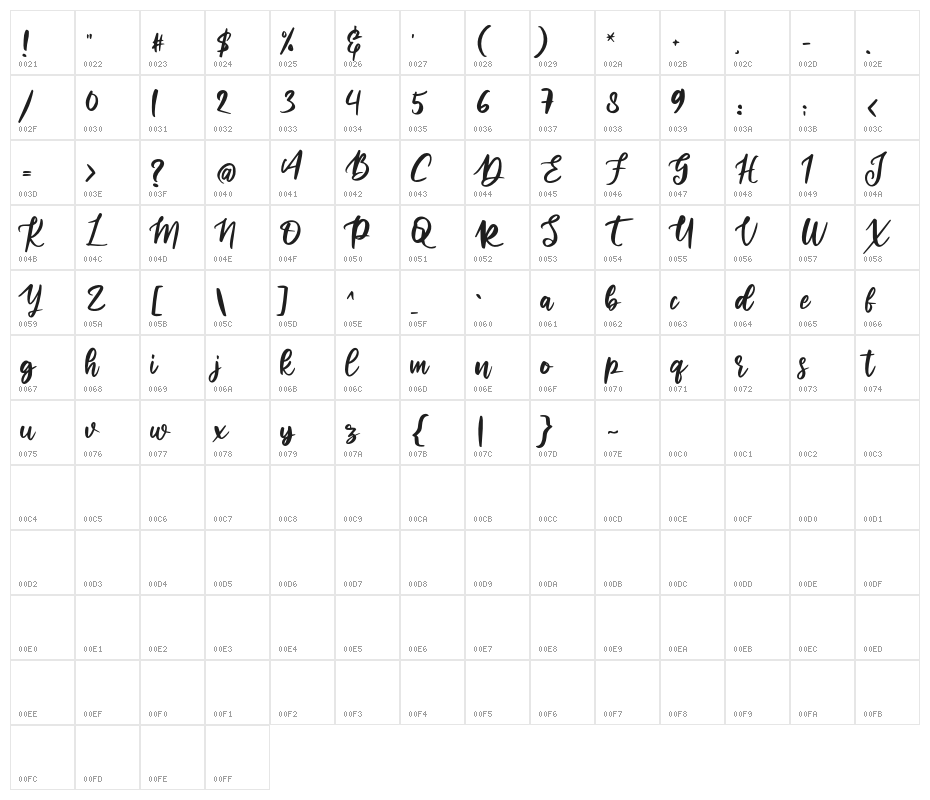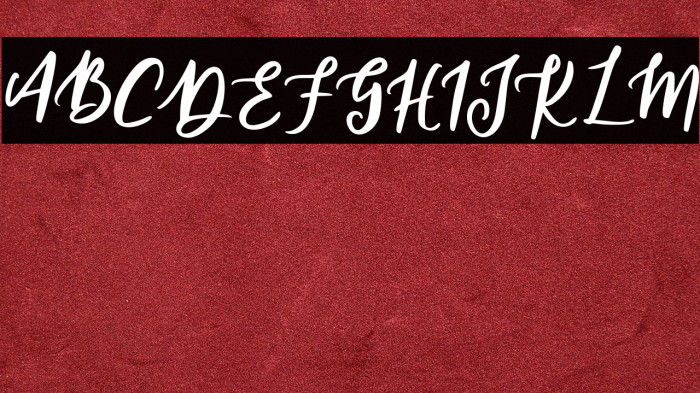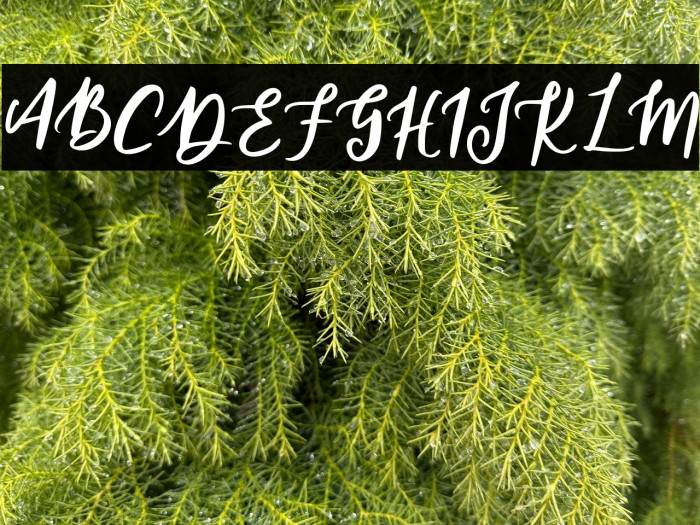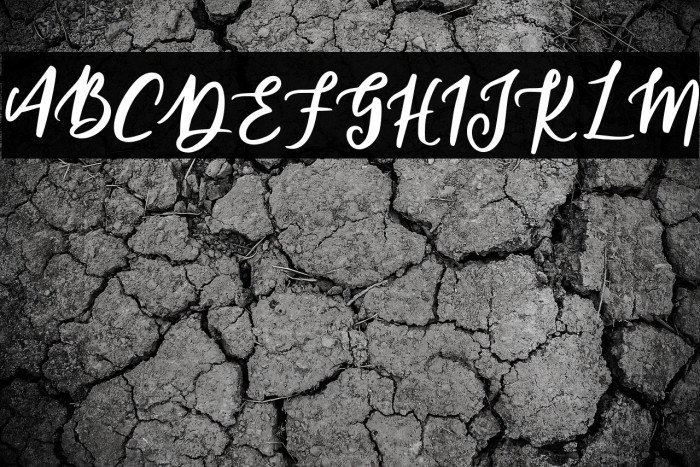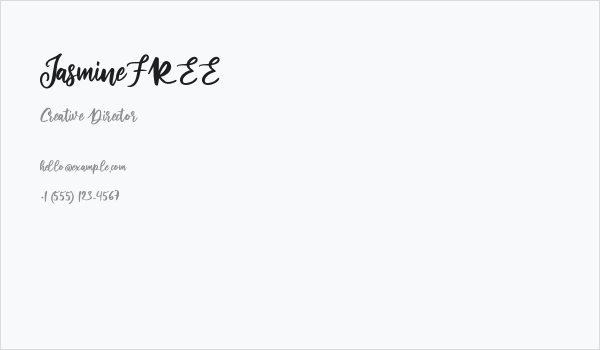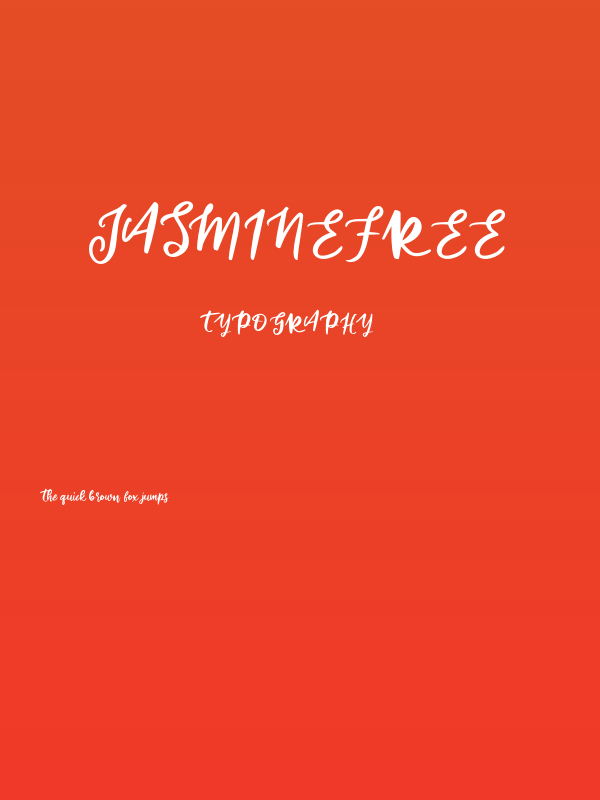
JasmineFREE Font
JasmineFREE Description
This font features a lively and expressive script style, characterized by its fluid and dynamic letterforms. The strokes are bold and confident, with a slight slant that adds to its energetic appearance. The uppercase letters are distinctively crafted with unique flourishes, while the lowercase letters maintain a cohesive flow. The numbers and special characters are designed to complement the overall aesthetic, making it versatile for various design needs. The font's playful yet elegant nature makes it suitable for creative projects that require a personal touch.
| Proposed Projects | Ideal for branding, invitations, greeting cards, and social media graphics. |